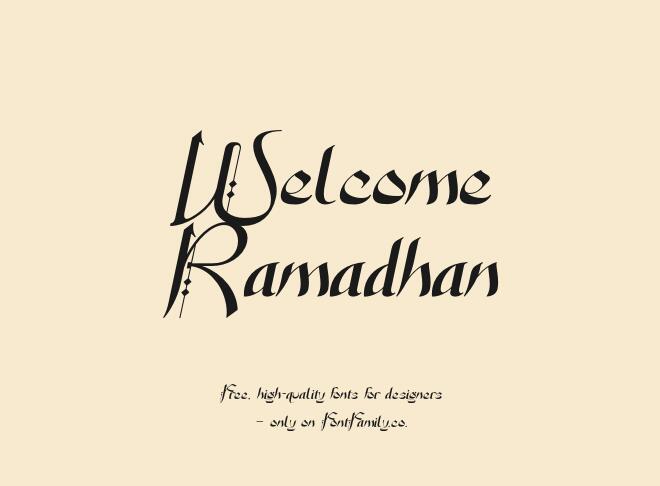
Welcome Ramadhan Font
Welcome Ramadhan Font is a beautifully crafted typeface by Creative Type Studio. This elegant script font, with its calligraphic and decorative style, is an excellent choice for creating stunning designs related to the holy month of Ramadhan. It exudes a sense of peace and spiritual tranquility, making it ideal for religious content, greeting cards, banners, and posters. Compared to other fonts, Welcome Ramadhan Font offers a unique, hand-drawn touch that adds personality and charm to your designs. This font blends traditional calligraphy with modern design trends, resulting in a versatile typeface that can enhance a wide range of projects. Whether you're a professional designer or a hobbyist, Welcome Ramadhan Font is a valuable addition to your font collection.